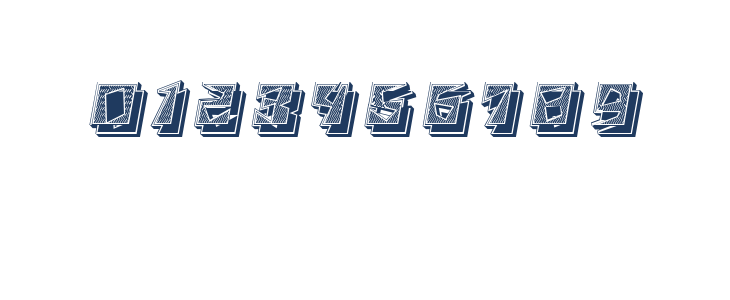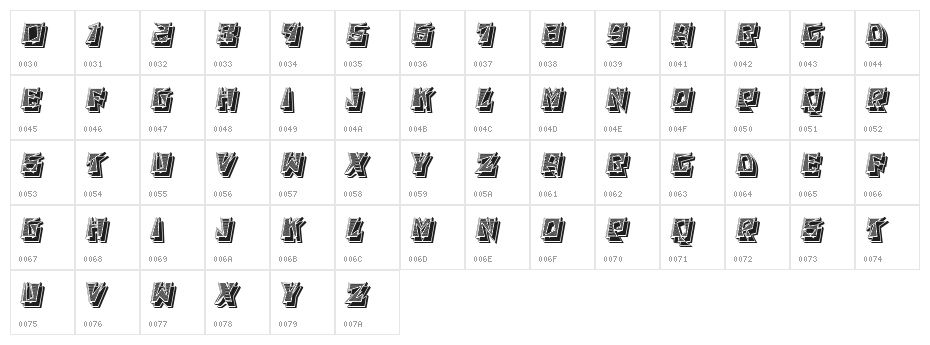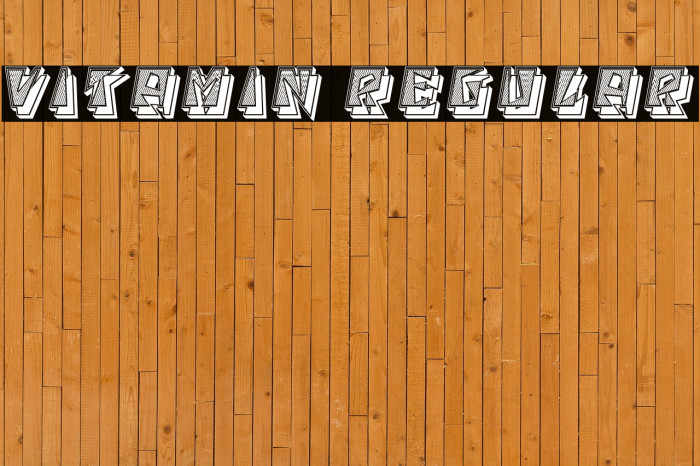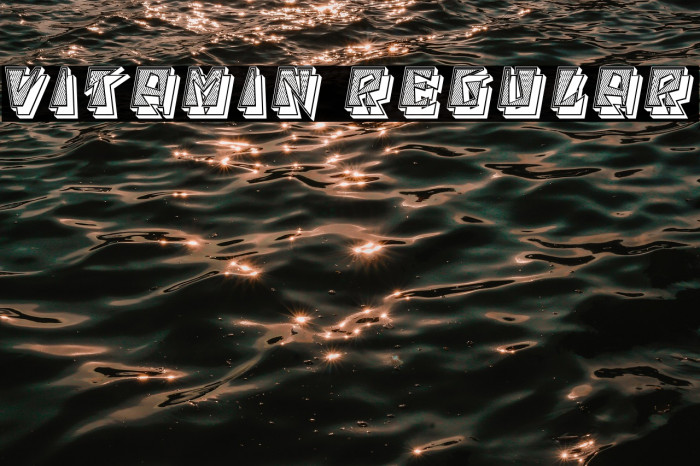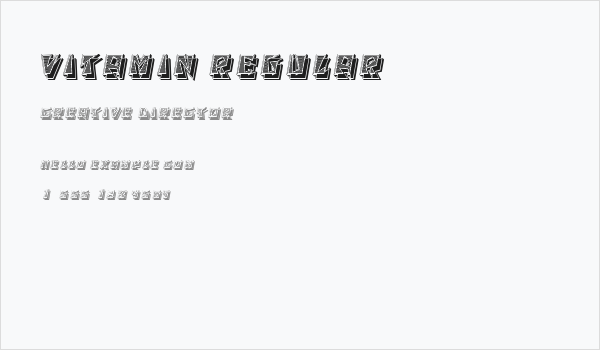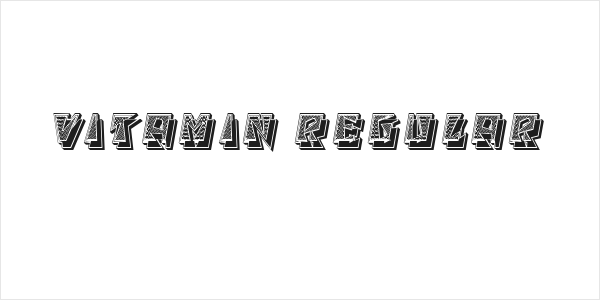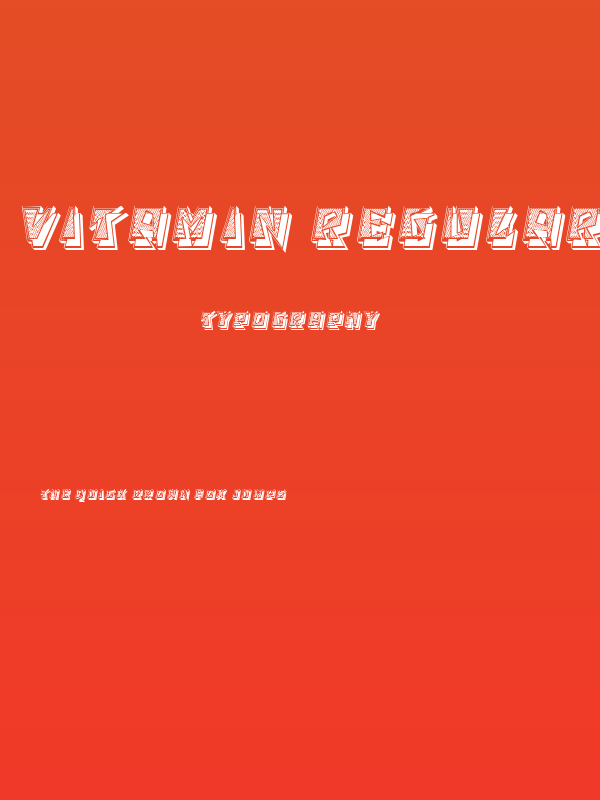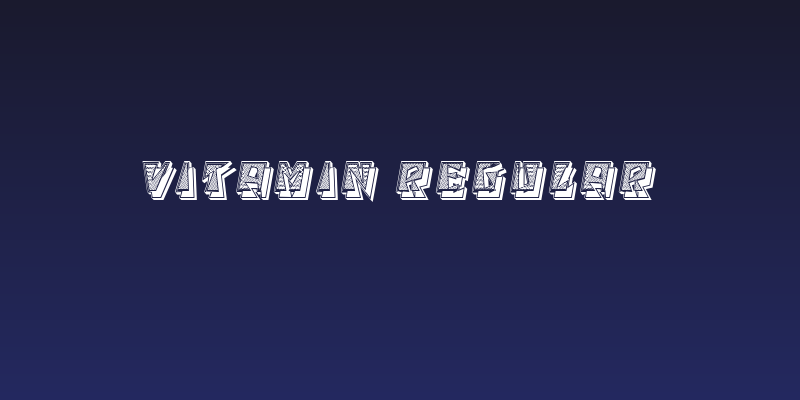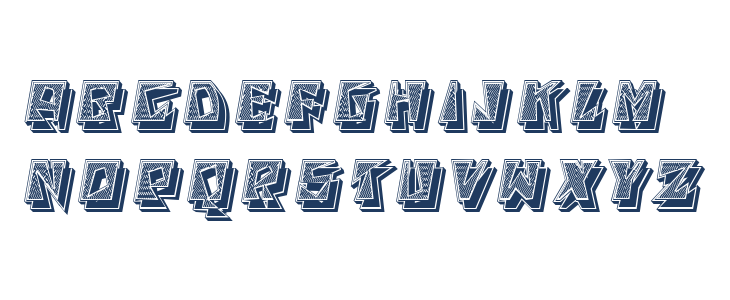
Vitamin Regular Font
Vitamin Regular Description
This font features a bold, three-dimensional design with a distinct shadow effect that gives each character a sense of depth and dynamism. The letters are constructed with a combination of solid and outlined strokes, creating a layered appearance. The geometric shapes and sharp angles contribute to a modern and edgy aesthetic, making it stand out in any design. The font's unique style is further enhanced by the intricate patterns within each character, adding an extra layer of visual interest. Its playful yet structured form makes it suitable for a variety of creative projects.
| Proposed Projects | Ideal for posters, album covers, branding, and any project requiring a bold, eye-catching typeface. |